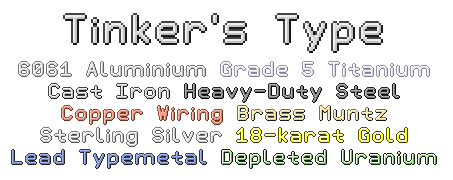
Why you don't add now more colours to some glyphs?
Because I want to keep to a consistent 7-color palette for everything.
i wonder if anyone can do a minecraft java resource pack for this font
i could